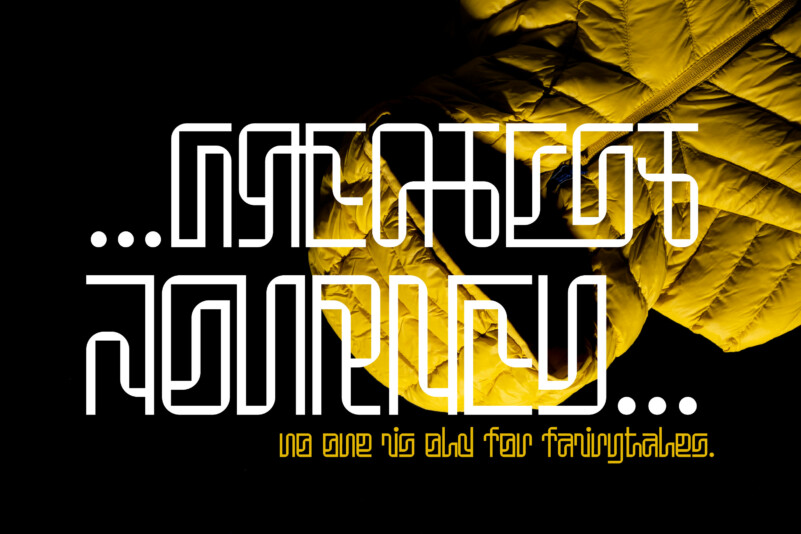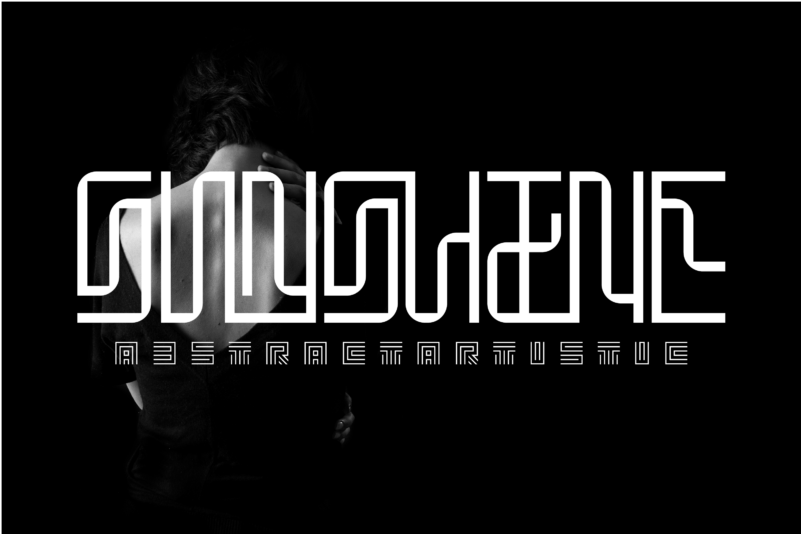
Abstract Artistic Font
Abstract Artistic Font – A fresh, eccentric and stylish display font. It’s a Industrial based font that can be given different uses. Its main virtue is the endless number of possibilities for you to write words, texts or paragraphs. This typeface is perfect for an brand logo, fashion stuff, clean design, magazine cover, poster & flyer, or simply as a stylish text overlay to any background image.
Abstract Artistic was built with OpenType features and includes 100 ligatures, alternate, numbers, punctuation, and it also supports other languages.
AC AD AL AN AR AS AT AU AV BE CA CE CH CO CT DE DI EA EC ED EE EL EM EN EP ER ES ET FE FO FR GE HA HE HI HO IE IC IL IN IO IR IS IT JU KE LA LE LI LL LO LY MA ME MI NC ND NE NG NO NT NS OC OF OM ON OO OP OR OT OU OW PA PR RA RD RE RI RO RS RT SE SH SI SO SS ST TA TE TH TI TO TR TT UM UN UR VE WI WO